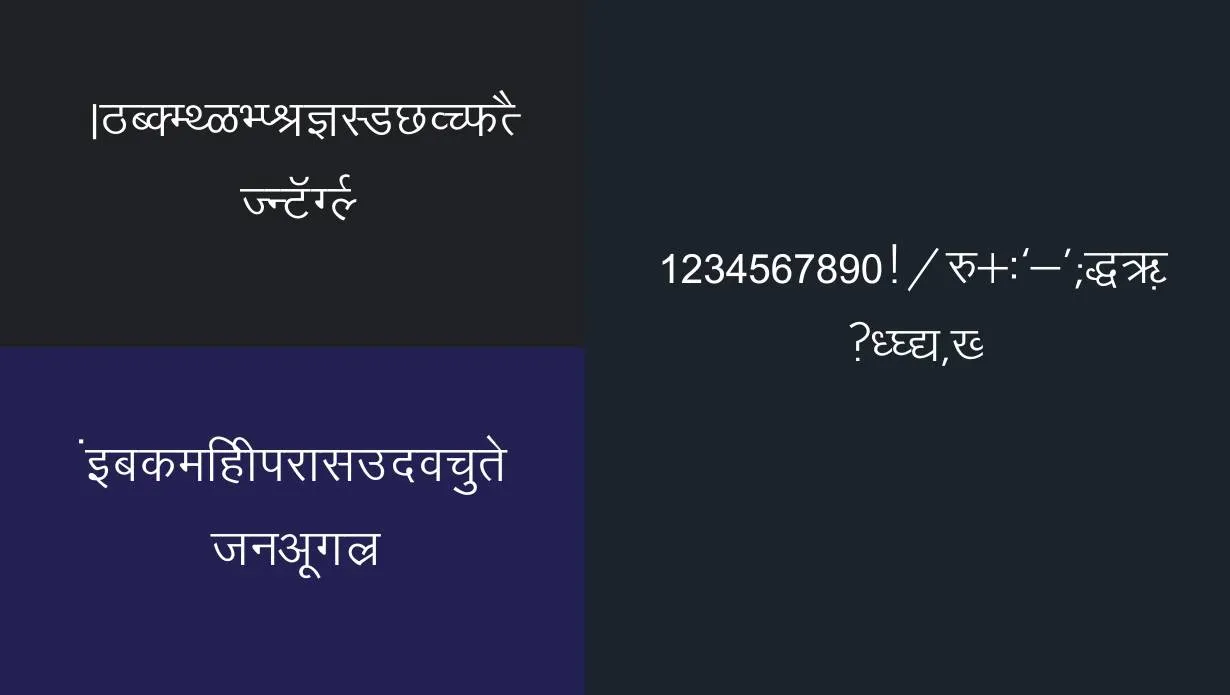
Kruti Dev 010 Font Free is a bit like magic for your text. It’s a special way to make your words stand out. Imagine your regular words, but with a twist – that’s what this font does. You can find it easily online and use it to give your writing a different and interesting vibe without spending any money.
| Name | Kruti Dev 010 Font |
| Designer | Kruti Dev Ram |